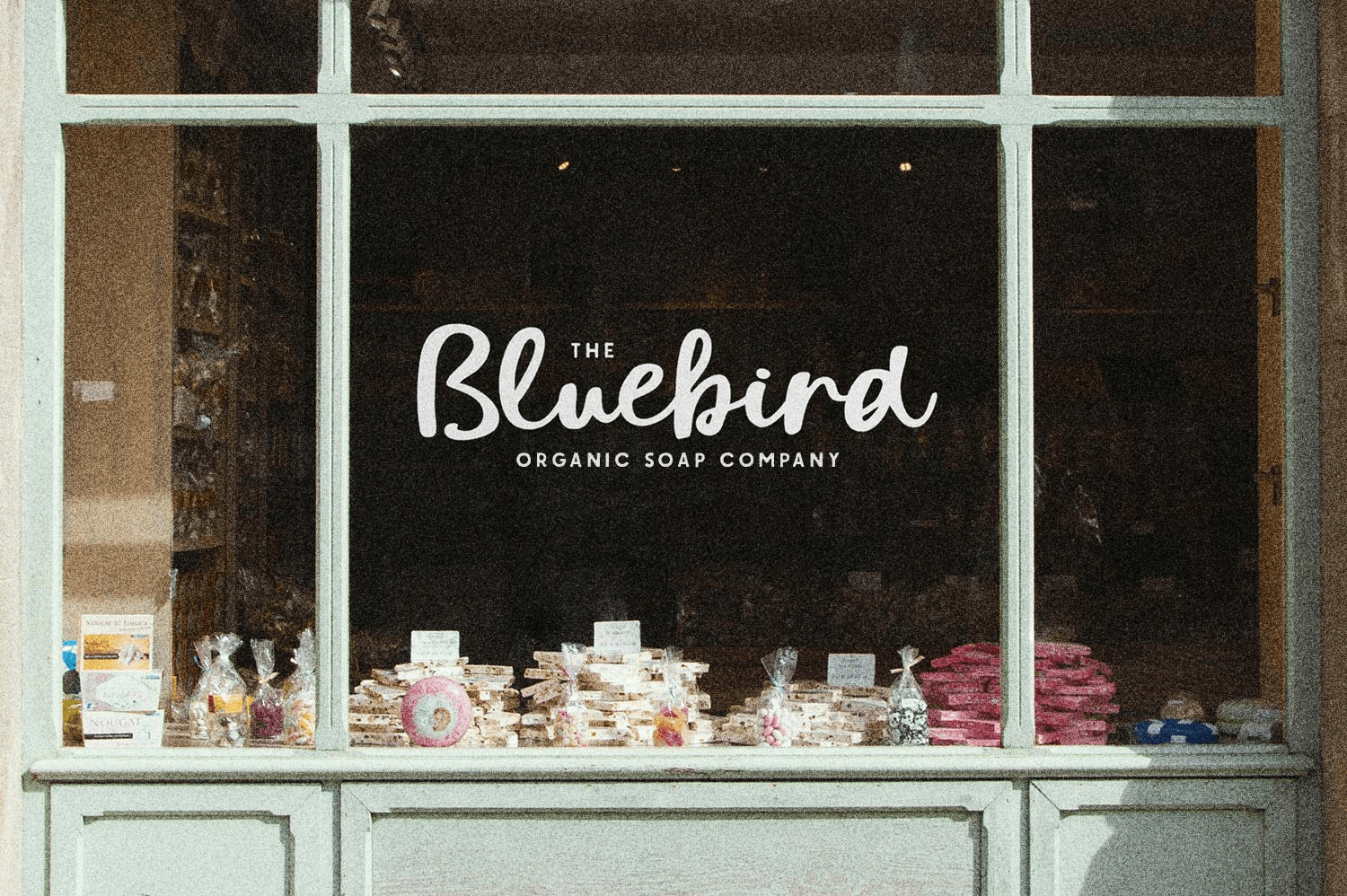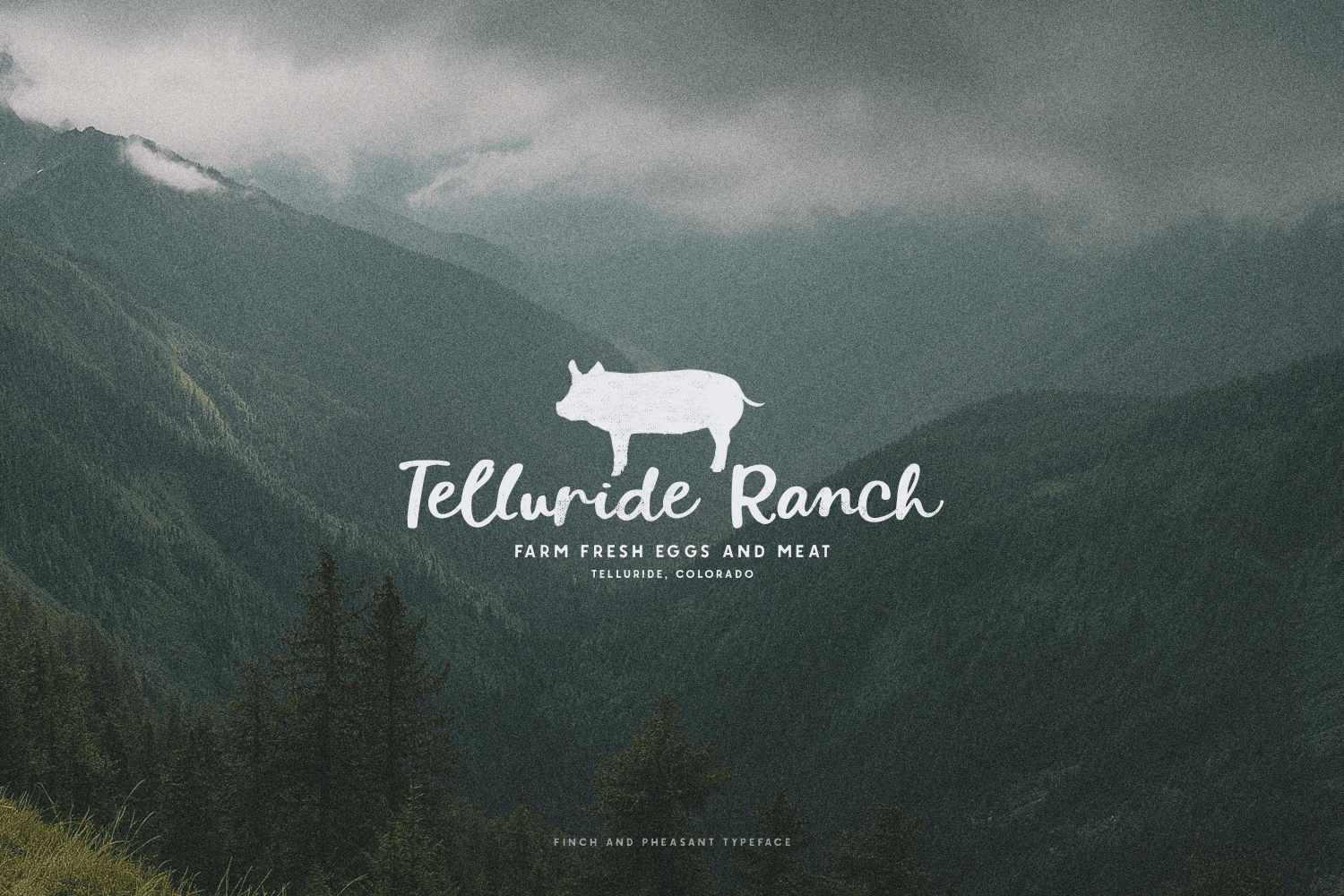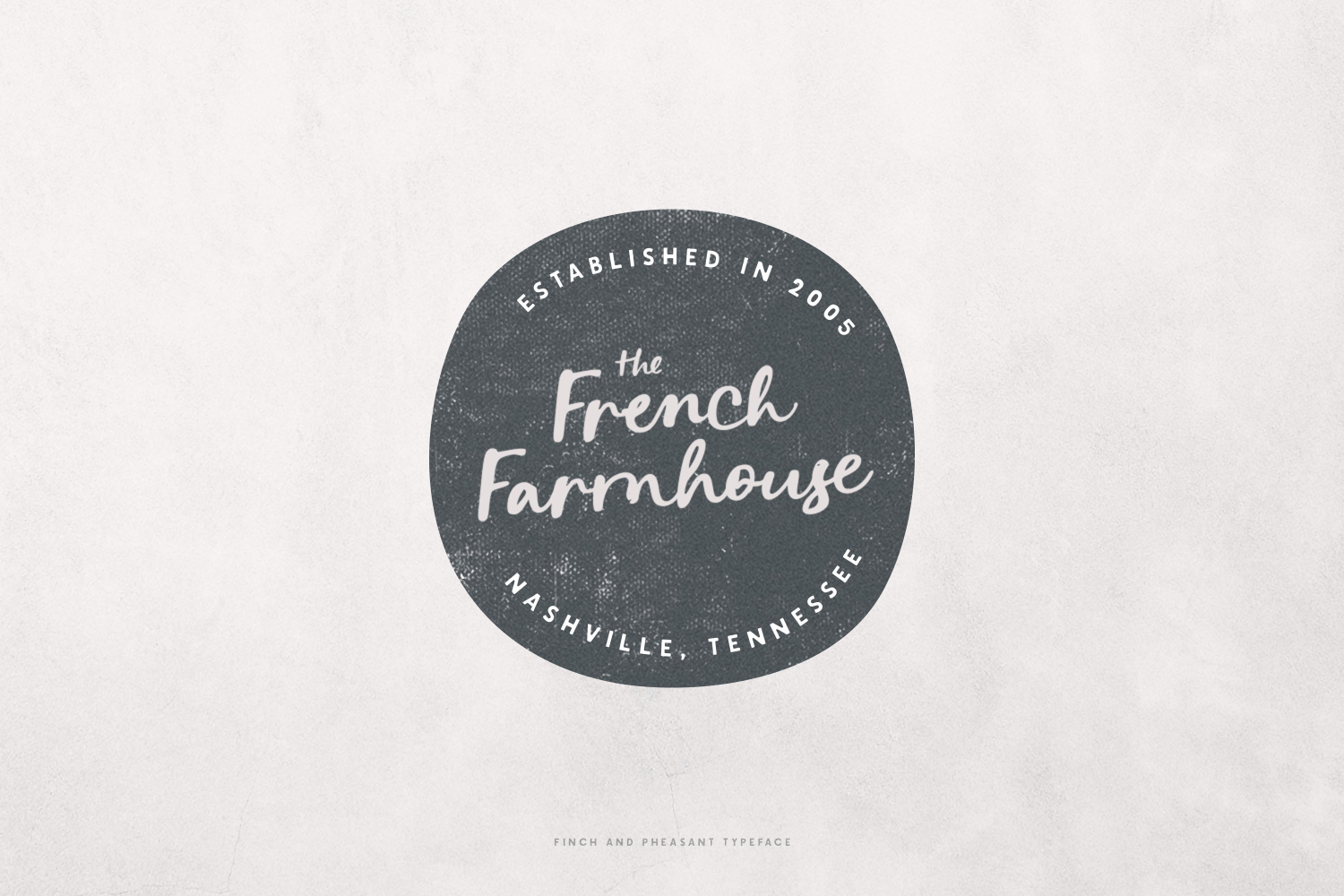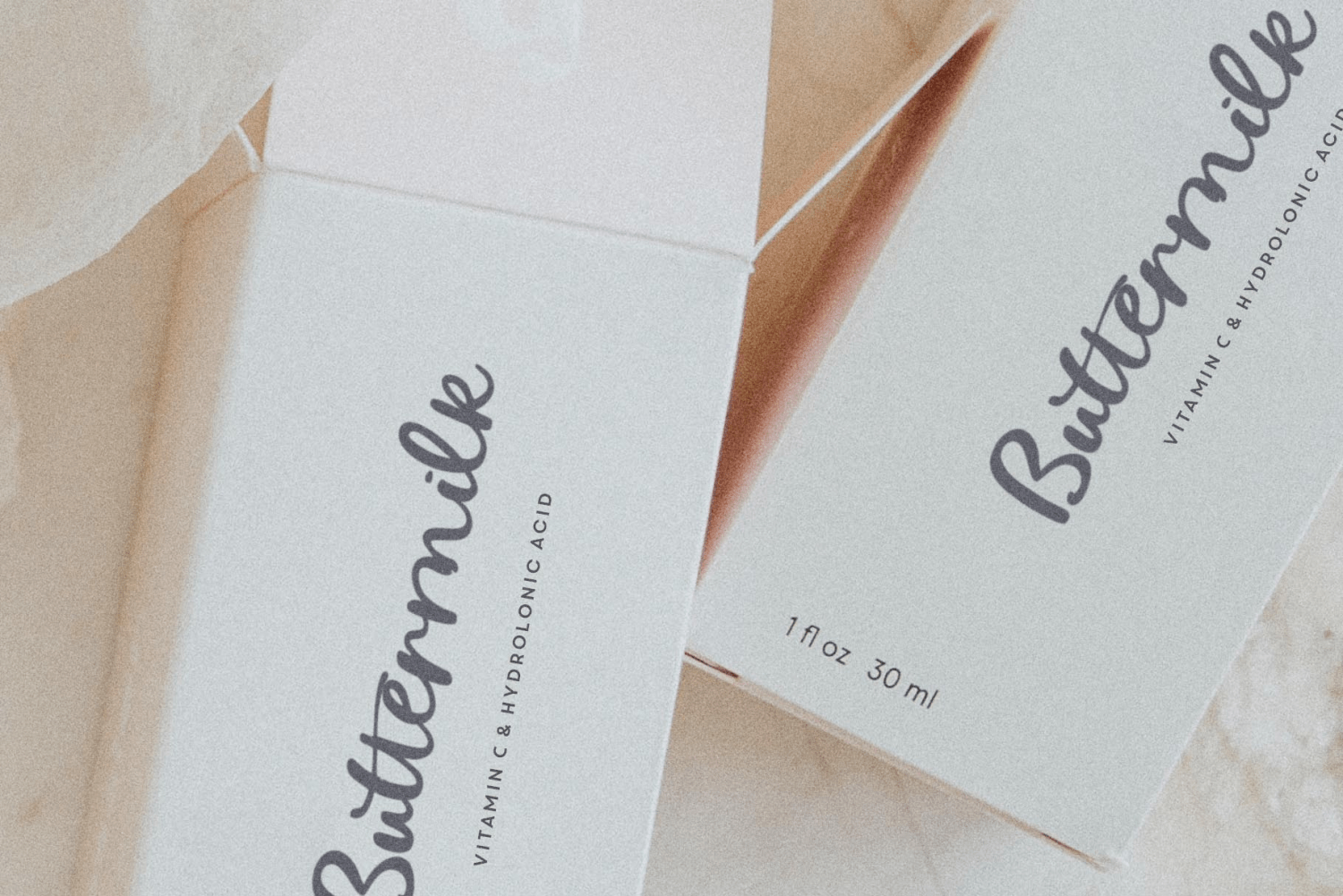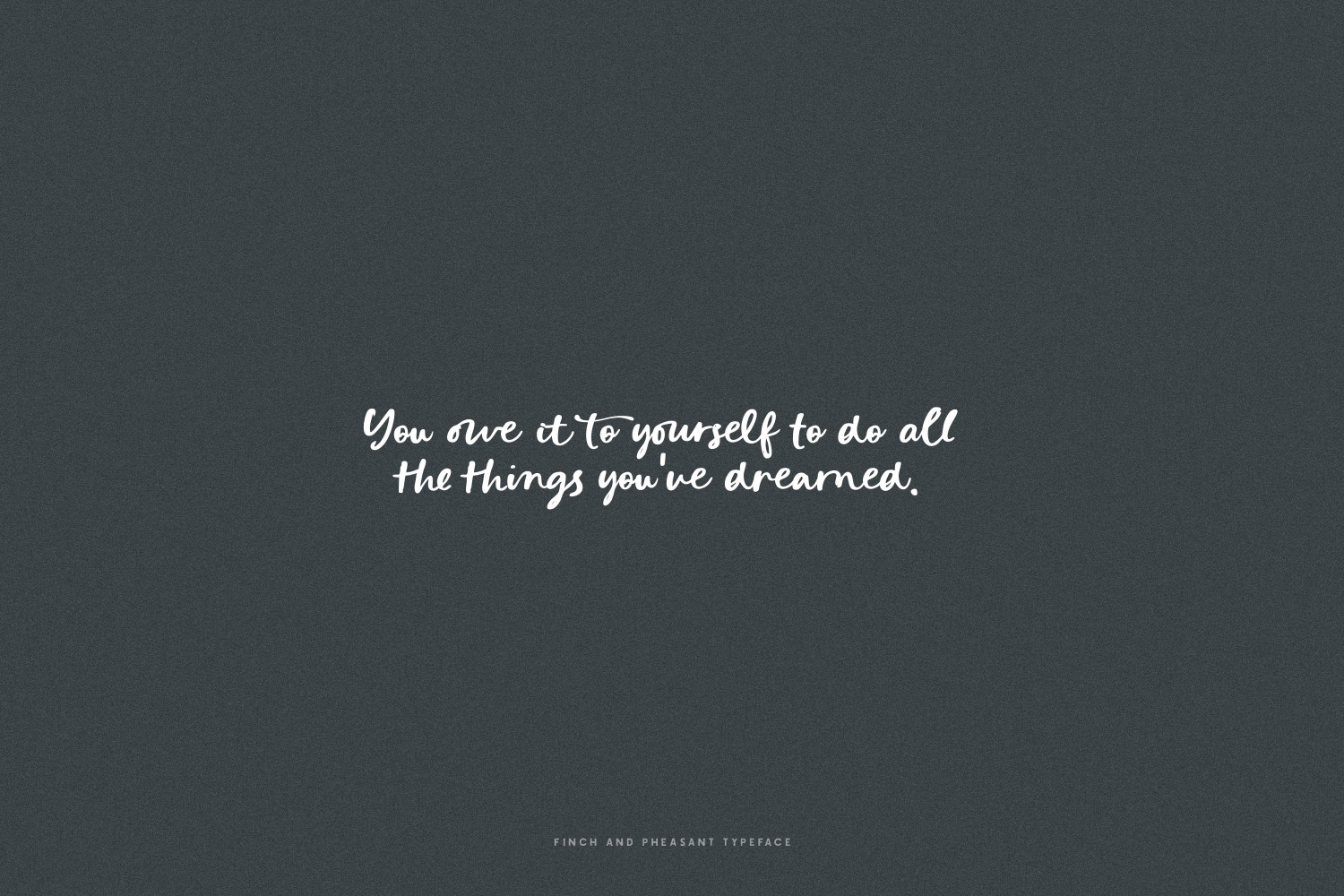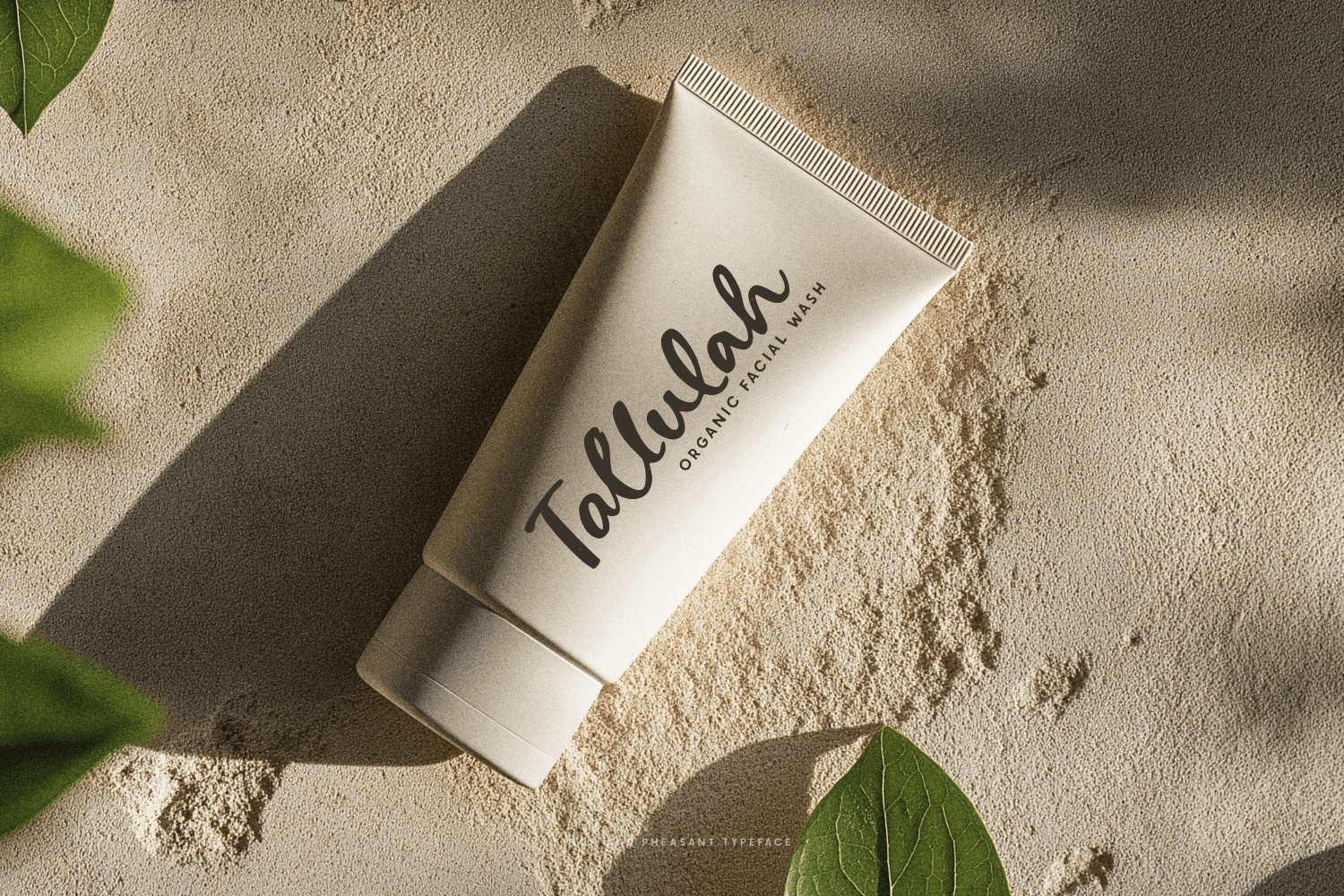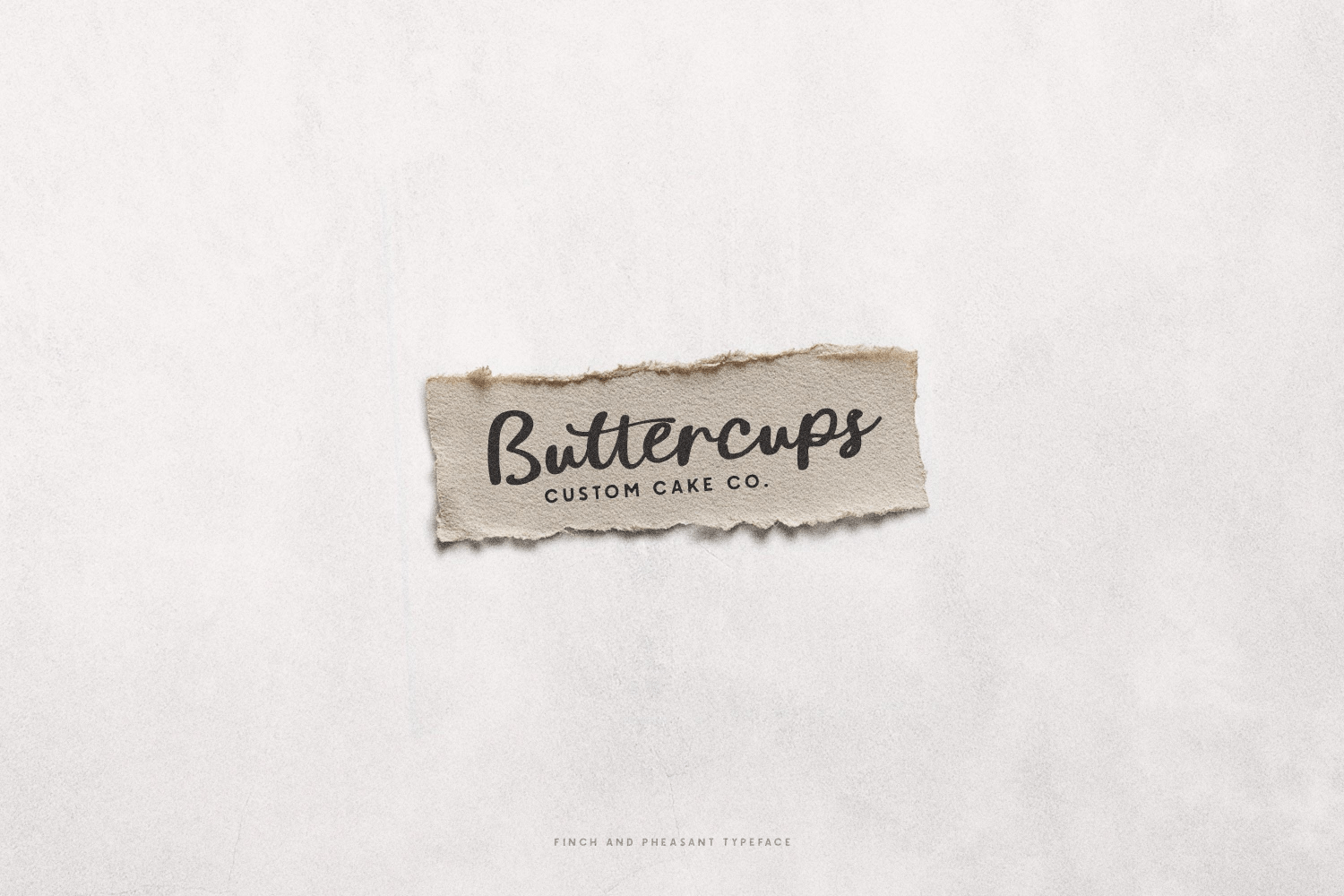
Finch & Pheasant Script
Font Family by Callie Rian & Co
Say Hello to Finch & Pheasant! This darling handmade script boasts a dancing baseline and over 60 automatic ligatures and alternates. It’s so cute for logos, packaging, signage, quotes, merch and more!
• Finch & Pheasant
• 60+ Ligatures